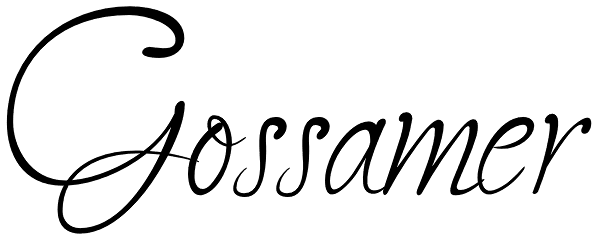
Gossamer
Gossamer is a delicate, wispy font, with extravagant caps and controlled, softly curved lower case characters. It is reminiscent of fantasy and fairy lore, and wonderfully evokes the magic of childhood. Use Gossamer for Christmas cards, for wedding...